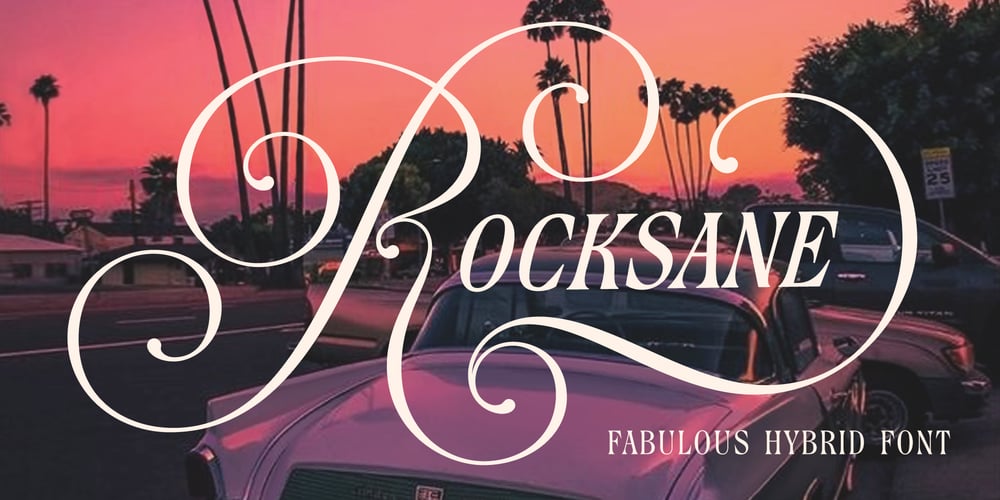
Rocksane Display
Rocksane Display font
Rocksane Display Font Family was designed by Andrey Sharonov and published by Andrey Sharonov. Rocksane Display contains 2 styles and family package options. Rocksane Display is a modern hybrid font with fantastic decorative uppercase and strong serif lowercase for impressive and powerful look. This typeface works fine in big sizes and more suits for example in short tittles, logotypes, names, movie posters, books and music album covers.Rocksane includes 84 beautiful uppercase alternates except of basic set. You can easy get it with special combination like A1, A2, A3 etc. (This hot keys works with activated Standard Ligatures option).In addition, there are 11 End-swashes which harmoniously underline the words. You can quickly get it by the same way with combination like _1, _2, _3 up to _11 (underscore+number).This features works fine in Adobe Photoshop or Illustrator. You can use Rocksane for following languages: Danish, Dutch, English, Estonian, Faroese, Finnish, French, German, Hungarian, Icelandic, Italian, Norwegian, Polish, Portuguese, Slovene, Spanish, Swedish, Turkish.